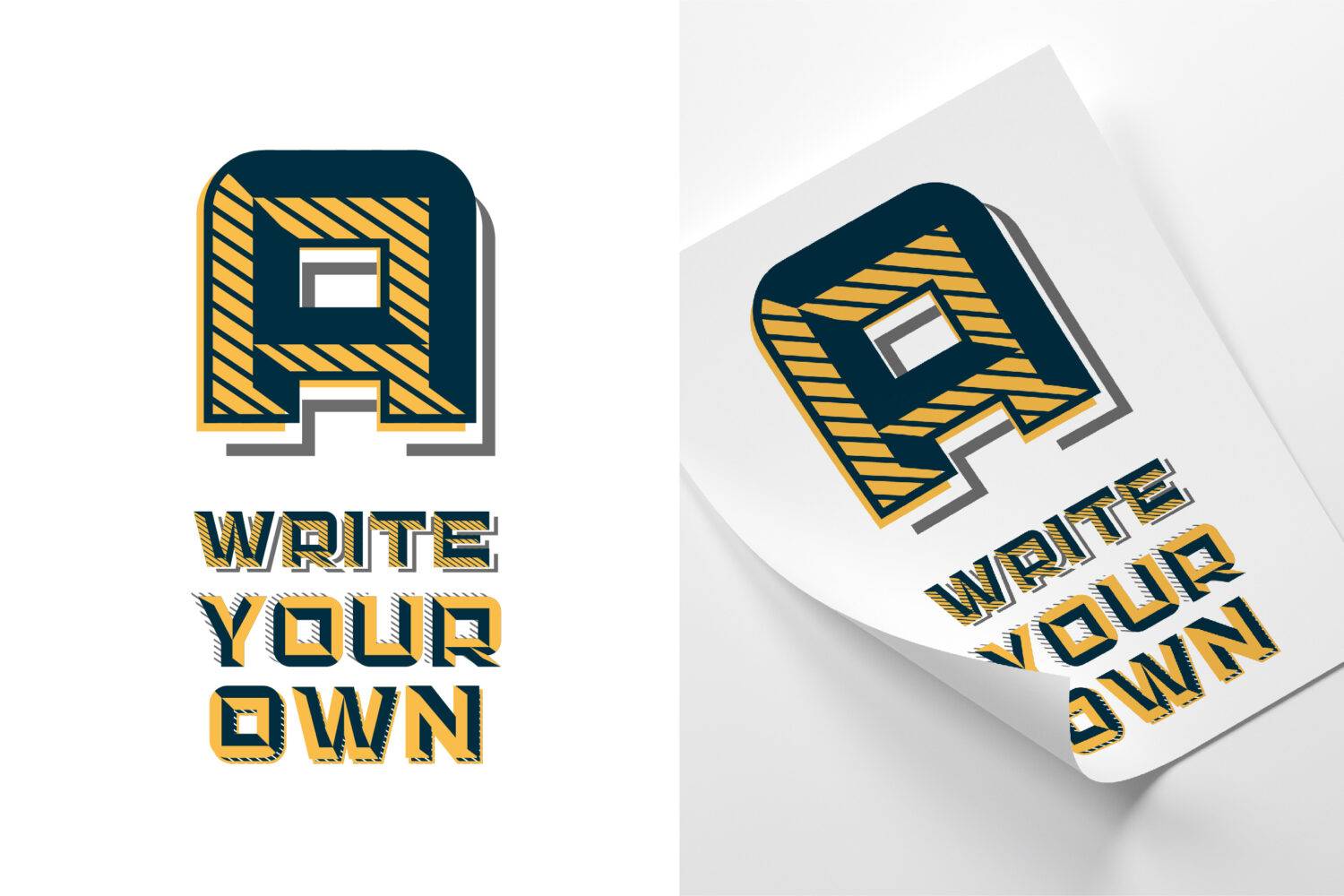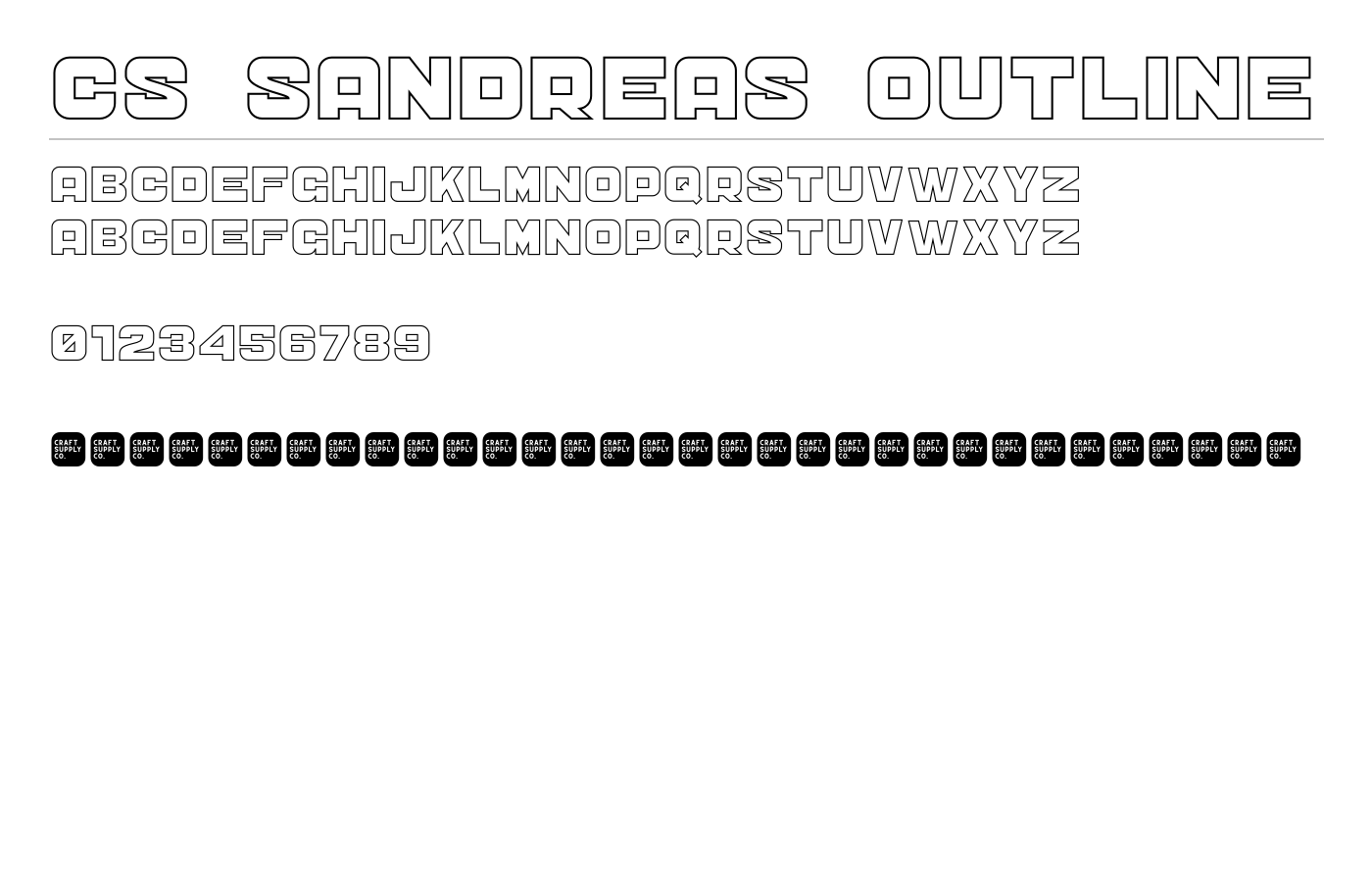
CS Sandreas Outline is a bold, geometric sans serif font with a modern, industrial feel. Its strong, blocky letterforms and uniform stroke width create a clean, structured look ideal for headlines, logos, and display use where a futuristic or tech-inspired style is desired. The outlined design adds visual interest and works well in branding and poster design, giving a bold yet airy impression.
About CS Sandreas Font
| Designer | Craft Supply Co. |